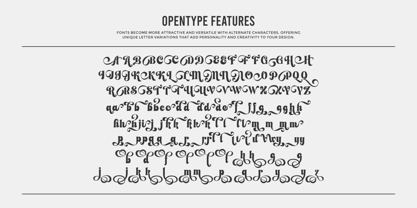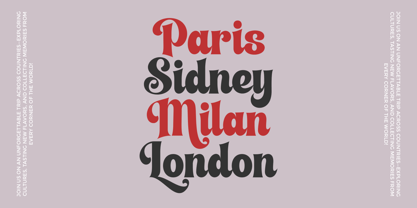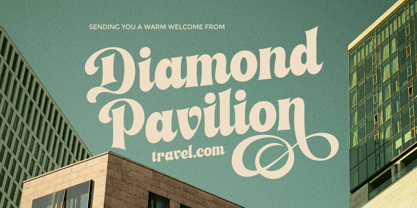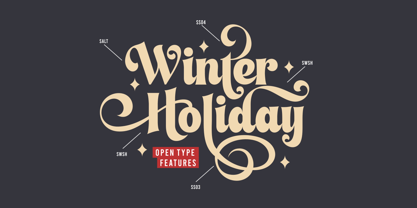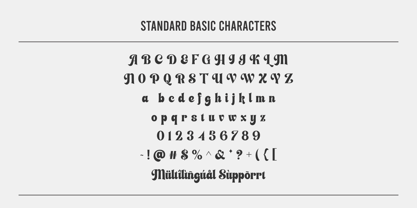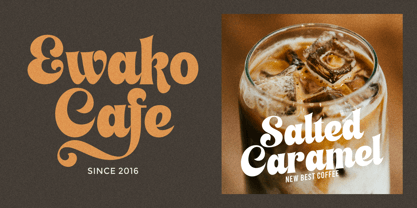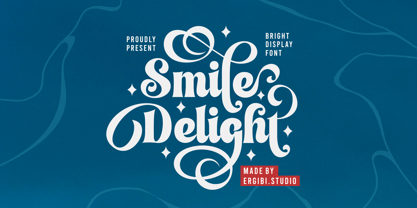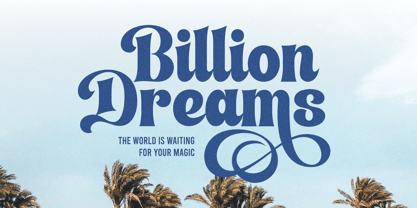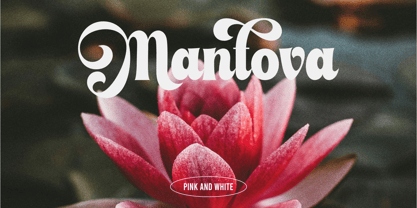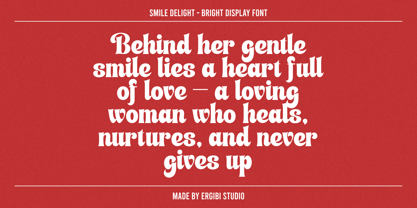
Smile Delight
by Ergibi Studio
The Smile Delight Font Family was designed by Riyadh Rahman and published by Ergibi Studio. Smile Delight contains 1 styles. More about this family
Smile Deligth is a bold display font that radiates confidence, joy, and creativity. With its thick strokes and playful curves, this typeface is designed to make a statement. Perfect for headlines, posters, branding, and packaging, Smile Deligth brings a cheerful energy to every design it touches.
Its bold character makes it highly readable, even from a distance, while the subtle quirks in its letterforms add a unique charm that stands out in modern layouts. Whether you're designing for a fun event, a trendy product, or a vibrant digital campaign, Smile Deligth is the perfect choice to spread positivity and catch every eye.
Designers: Riyadh Rahman
Foundry: Ergibi Studio